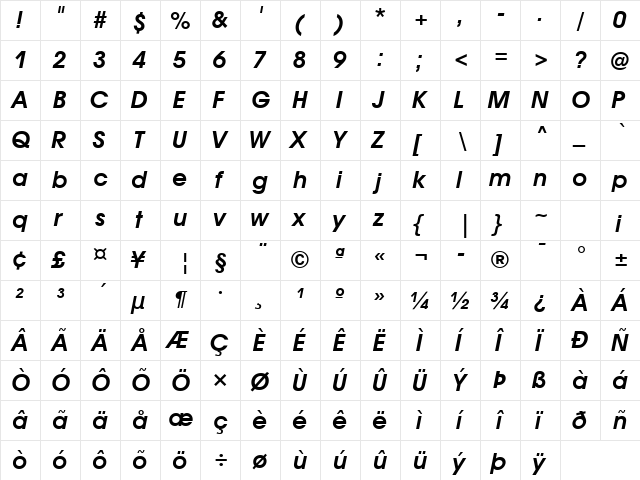
ITC Avant Garde SWA Demi Oblique
Design Context for ITC Avant Garde SWA Typeface
ITC Avant Garde SWA is a composed and adaptable typeface that performs quietly and consistently across a wide range of design contexts. The dynamic lean of this cut emphasises speed and emphasis in any layout.
Pro Tip: Use ITC Avant Garde SWA for emphasis, pull quotes, and subheadings where its slanted energy can add rhythm to the layout.